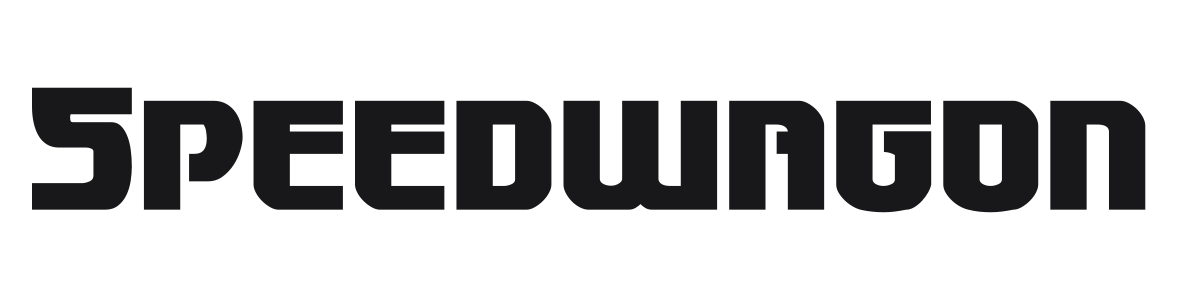
Speedwagon
Speedwagon is a heavy condensed geometric sans with thick, square-built characters and sharp notched cuts where strokes meet. It carries an unmistakable 1970s energy — the kind found on racing decals, action film titles, and arena rock posters. The multiple style variants (3D, Laser, Halftone) extend its range across high-impact graphic contexts.